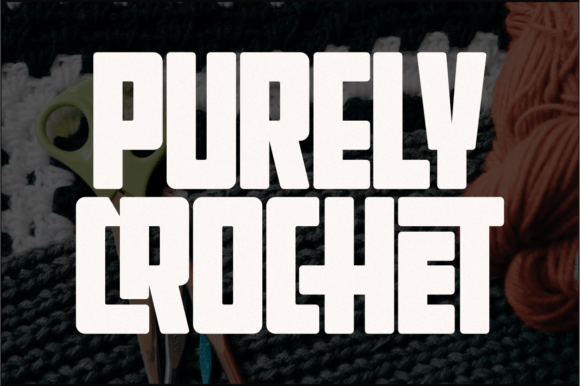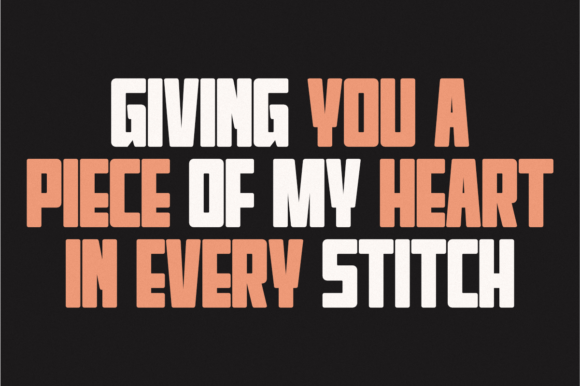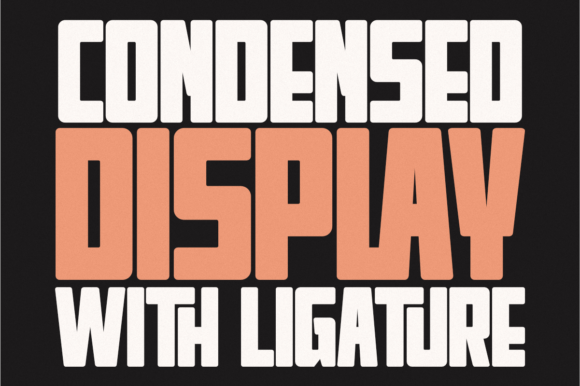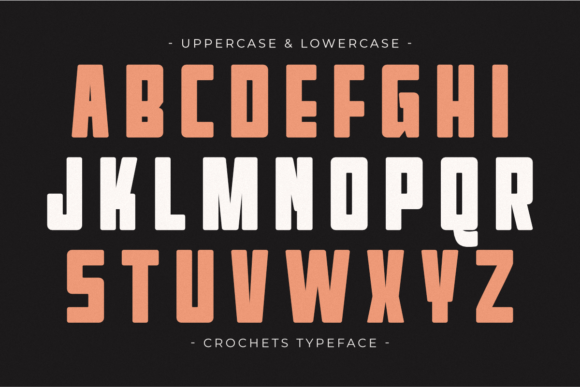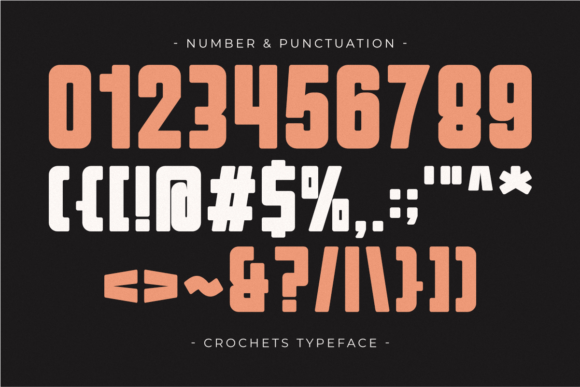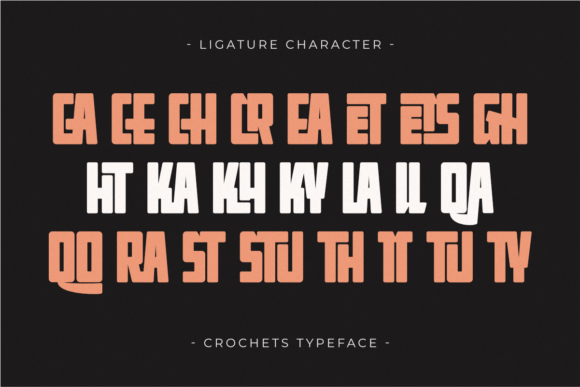
Crochets Font: Elevate Your Brand with a Bold, Modern Display Typeface
In the world of typography, a well-crafted font can make all the difference in creating a lasting impression. Introducing Crochets Font, a high-impact modern condensed display font designed to elevate your brand’s visual presence. With its sleek, tall structure and unique artistic ligatures, this bold typeface is perfect for professional branding, luxury editorial designs, and commanding visual statements.
A Versatile Display Font for Modern Designs
Crochets Font is a versatile display font that excels in a variety of applications, including:
- Luxury editorial designs: Add a touch of sophistication to your magazine layouts, fashion editorials, and high-end publications.
- Fashion logos: Create a lasting impression with a bold, eye-catching logo that reflects your brand’s personality.
- Large-scale posters: Make a statement with a striking poster that grabs attention and communicates your message effectively.
- Contemporary streetwear apparel: Give your brand a modern edge with a stylish, avant-garde font that resonates with fashion enthusiasts.
Clean Geometry and Creative Character Connections
Crochets Font boasts clean geometry and creative character connections that ensure your headlines stand out with a professional, avant-garde aesthetic. The font’s sleek lines, precise curves, and carefully crafted ligatures create a harmonious balance of form and function. This attention to detail makes Crochets Font an excellent choice for designers and crafters seeking a high-quality display font.
Unique Artistic Ligatures for Added Sophistication
One of the standout features of Crochets Font is its unique artistic ligatures. These creative connections between characters add a sophisticated flair to any layout, setting it apart from more traditional fonts. The ligatures are carefully designed to enhance the font’s overall aesthetic, creating a seamless and elegant flow of text.
Professional Branding and Visual Presence
In today’s competitive market, a strong brand identity is crucial for success. Crochets Font is designed to help you establish a commanding visual presence that reflects your brand’s values and personality. With its bold, modern design and versatile applications, this font is an excellent choice for businesses and individuals seeking to make a lasting impression.
Crochets Font is an excellent addition to any designer’s or crafter’s toolkit. Whether you’re working on a luxury editorial project, creating a fashion logo, or designing streetwear apparel, this font is sure to elevate your work. Its clean geometry, creative character connections, and unique artistic ligatures make it an ideal choice for a wide range of applications.
Key Features of Crochets Font
- High-impact modern condensed display font
- Sleek, tall structure with unique artistic ligatures
- Versatile applications: luxury editorial designs, fashion logos, large-scale posters, and contemporary streetwear apparel
- Clean geometry and creative character connections
- Professional, avant-garde aesthetic
In conclusion, Crochets Font is a bold, modern display font that is sure to elevate your brand’s visual presence. With its sleek design, unique artistic ligatures, and versatile applications, it’s an excellent choice for designers and crafters seeking a high-quality font. Whether you’re working on a luxury editorial project or creating a fashion logo, Crochets Font is the perfect tool to help you make a lasting impression.